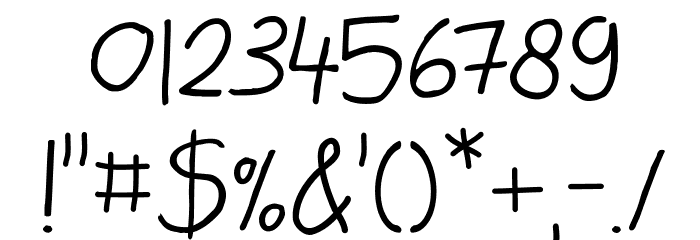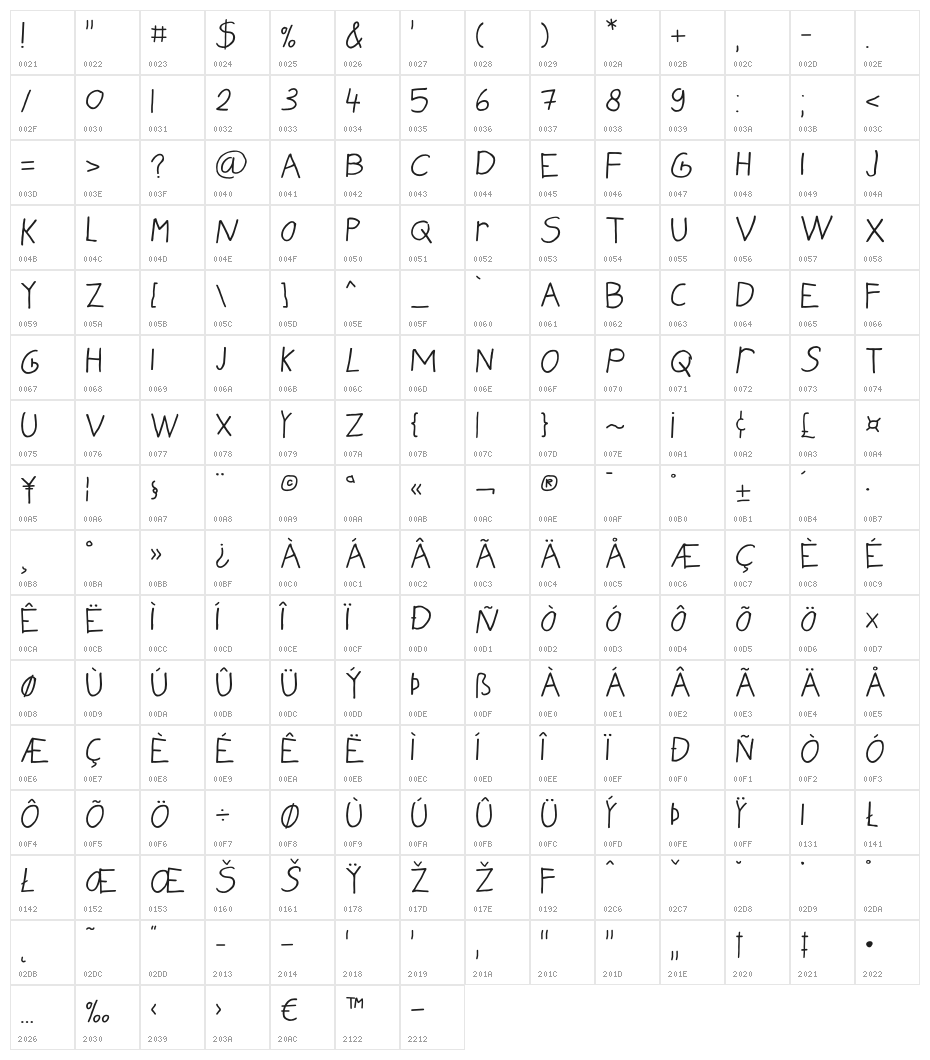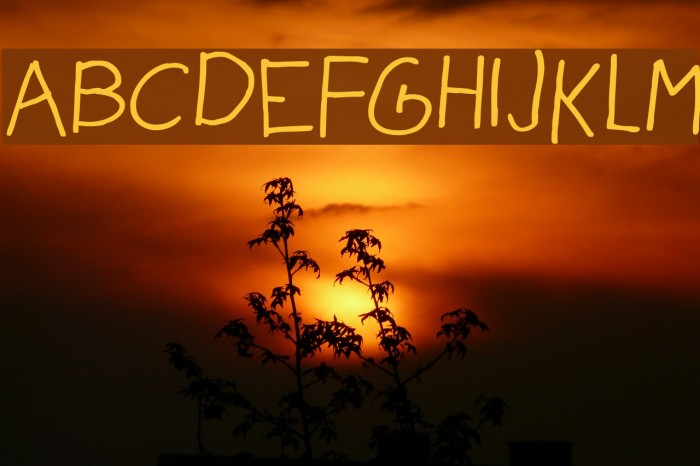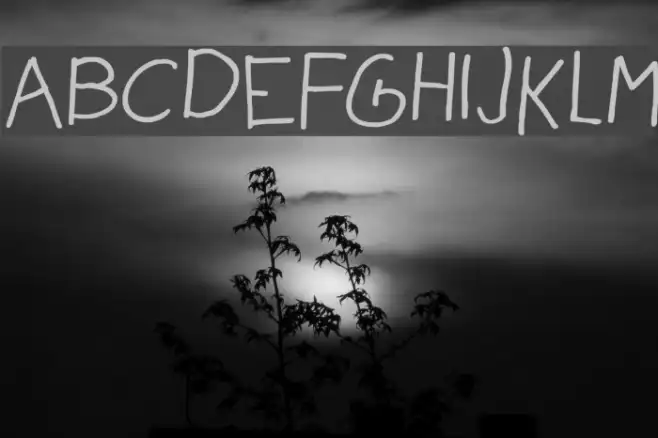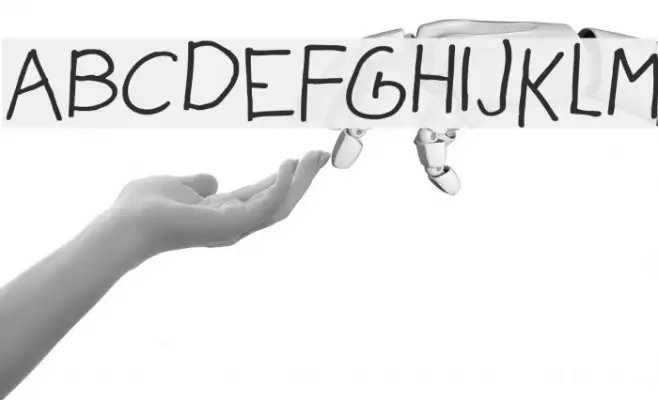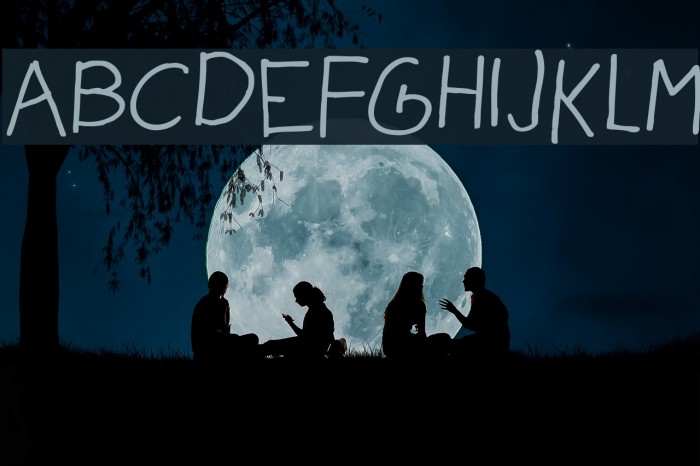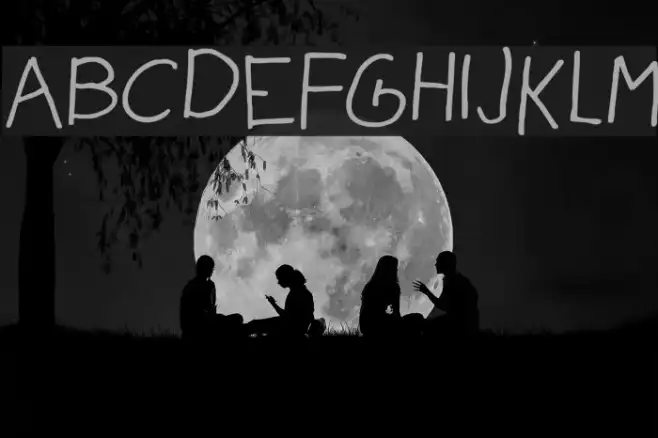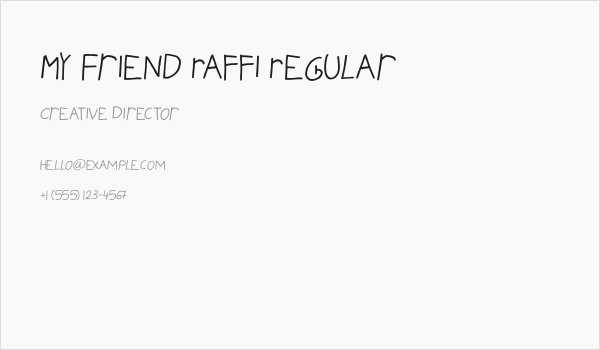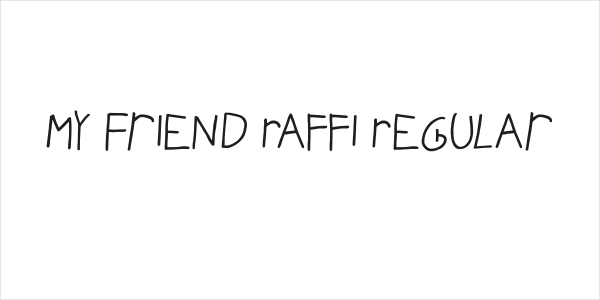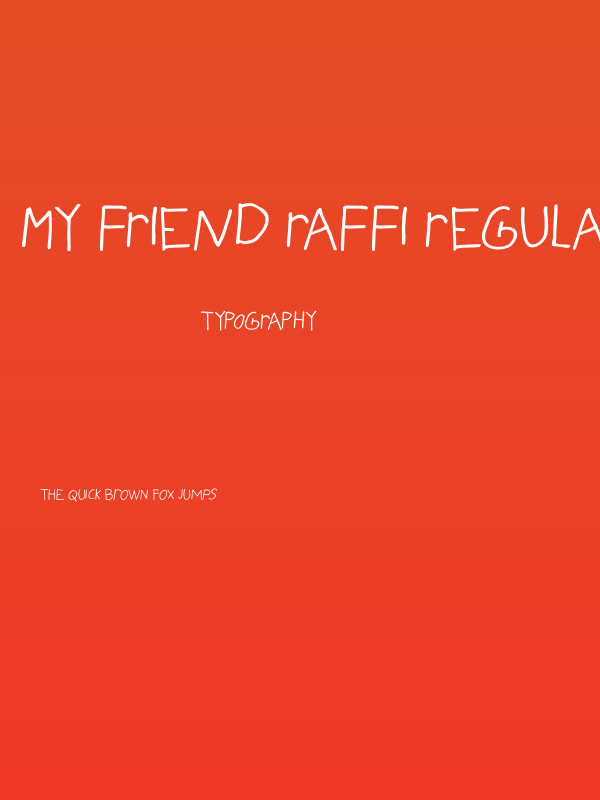
My Friend Raffi Regular Font
My Friend Raffi Regular Description
This font features a playful and informal handwritten style, characterized by its irregular strokes and casual appearance. The letters are slightly slanted, giving a dynamic and lively feel. The uppercase and lowercase letters maintain a consistent style, with rounded edges and a friendly, approachable look. The numerals and special characters follow the same design ethos, ensuring uniformity across all glyphs. This font is ideal for projects that require a personal touch, such as greeting cards, children's books, or informal invitations. Its unique charm lies in its ability to convey warmth and friendliness, making it suitable for a variety of creative applications.
| Proposed Projects | Greeting cards, children's books, informal invitations, personal branding. |